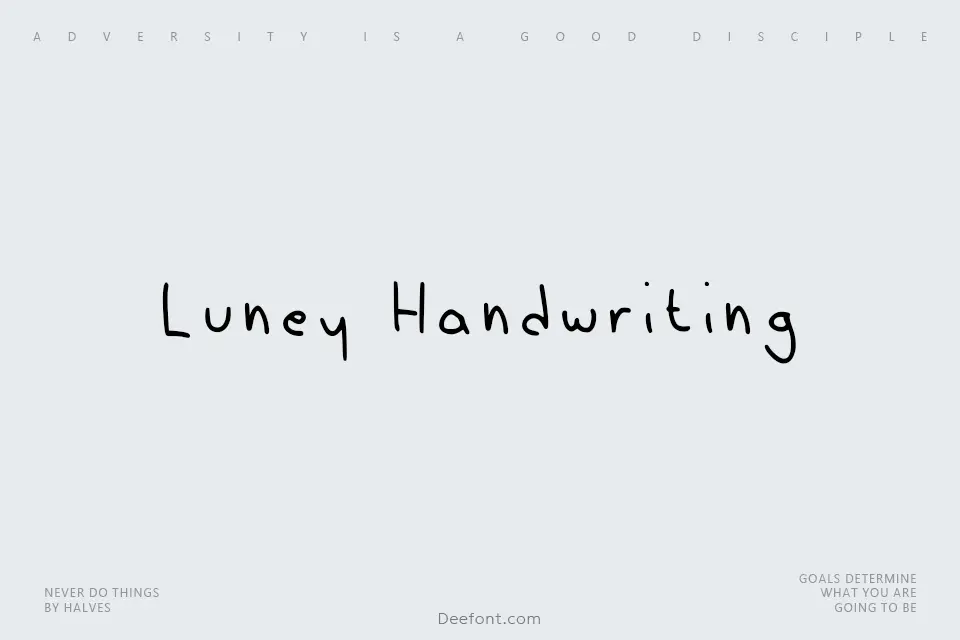
Luney Handwriting Font
Luney Handwriting is a delightful casual handwritten font that captures the authentic, organic feel of natural pen strokes. Designed by Ylva Winter and created with Calligraphr, this playful typeface features charming irregular letterforms that bring a warm, personalized touch to any design project. With its flowing rhythm and genuine character, Luney Handwriting is ideal for creative branding, greeting cards, invitations, poster headlines, social media graphics, and any project seeking an authentic handwritten aesthetic. The font’s natural imperfections and expressive lines make it perfect for adding personality and human warmth to contemporary designs.